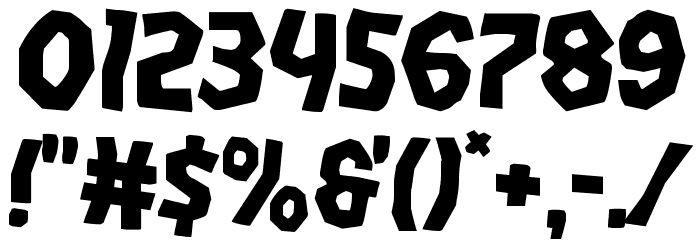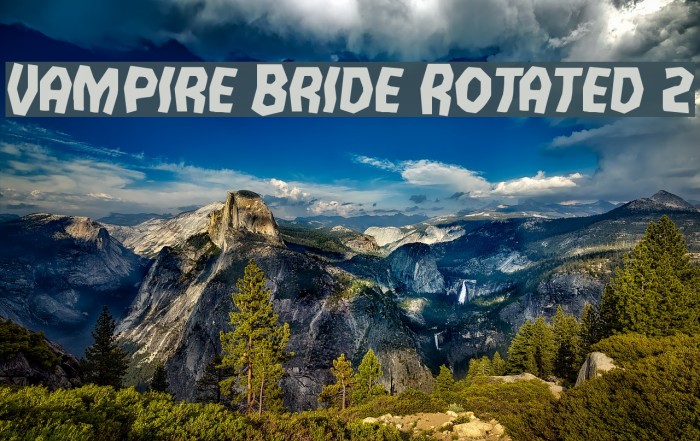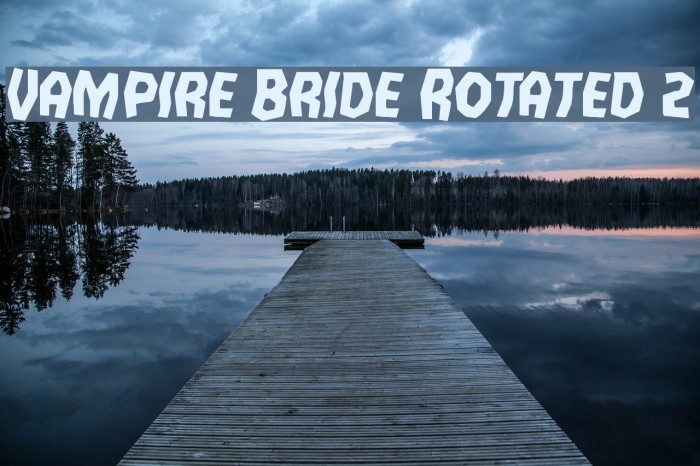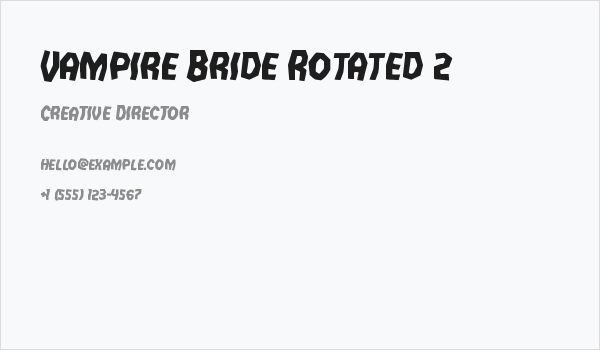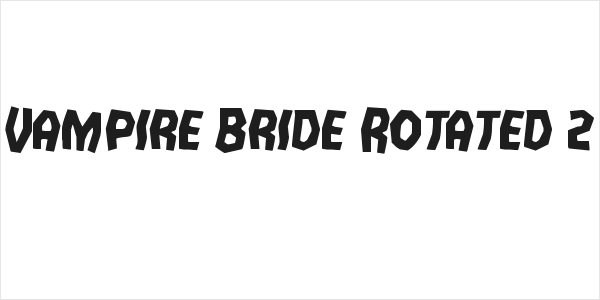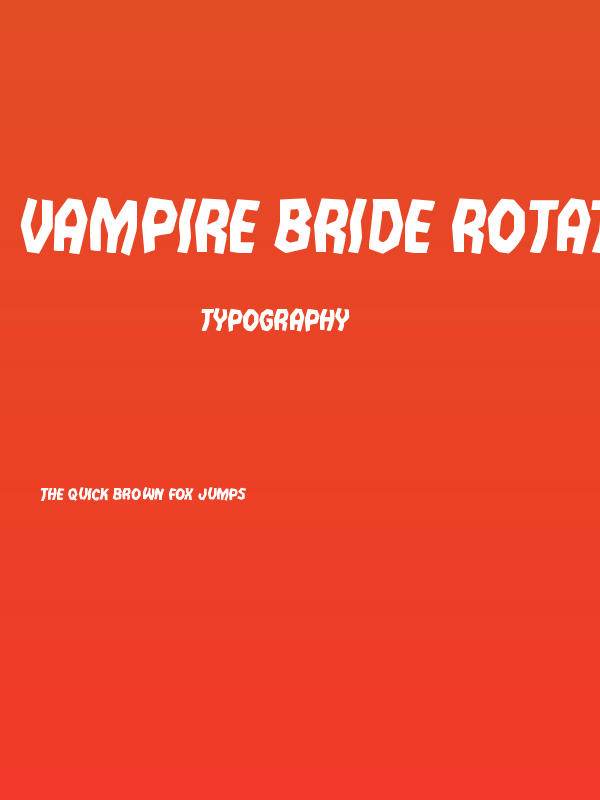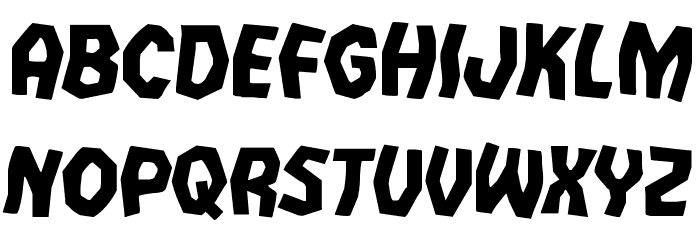
Vampire Bride Rotated 2 Font
Vampire Bride Rotated 2 Description
This font features a bold and jagged design, reminiscent of classic horror themes. The characters have an irregular, hand-cut appearance, giving them a unique and edgy look. The uppercase and lowercase letters maintain a consistent style, with sharp angles and uneven lines that create a sense of movement and energy. The numerals and special characters follow the same aesthetic, ensuring a cohesive look across all text. This font's dramatic and eye-catching style makes it ideal for projects that require a strong visual impact.
| Use Case | Headlines, Posters, Logos |
| Proposed Projects | Ideal for Halloween-themed designs, horror movie posters, spooky event invitations, and any project needing a dramatic, edgy typeface. |